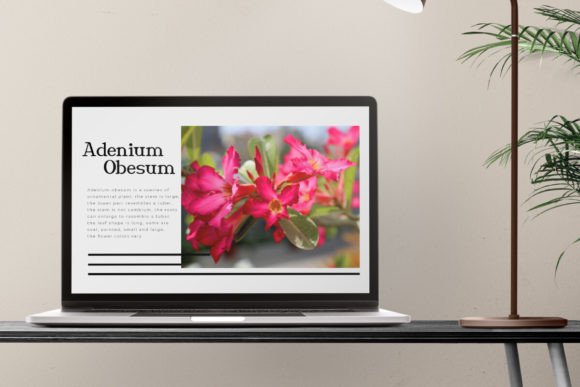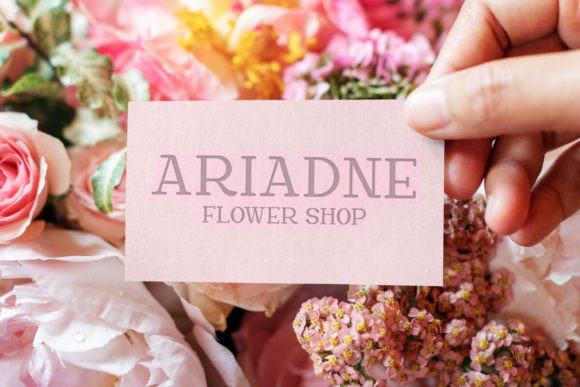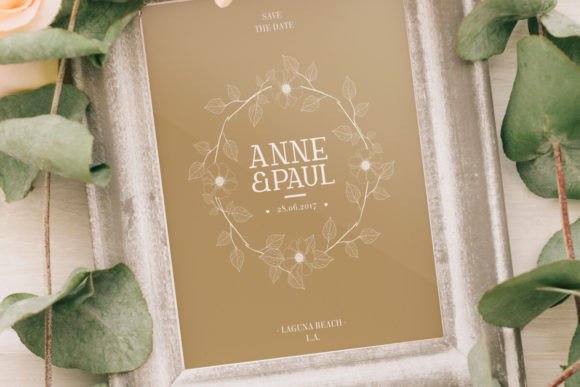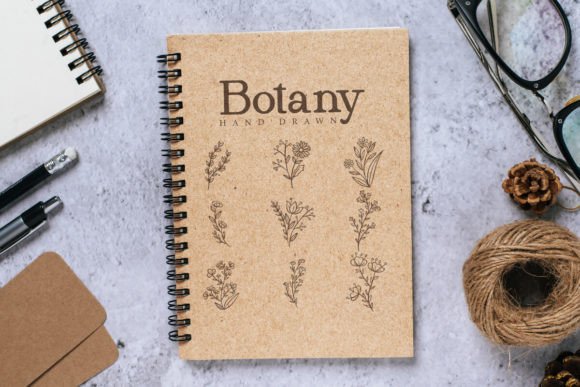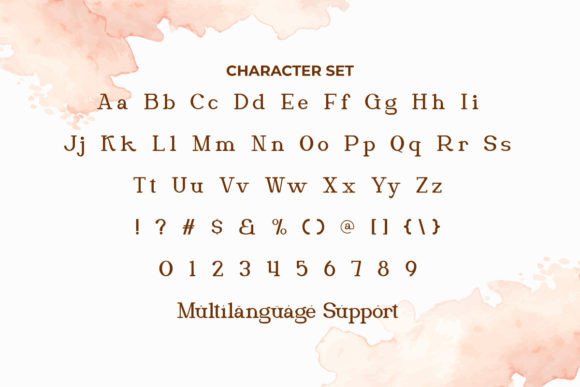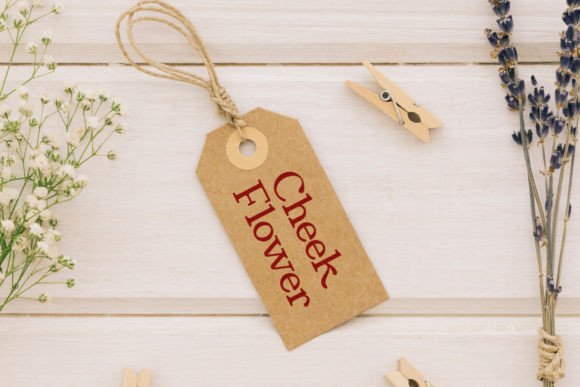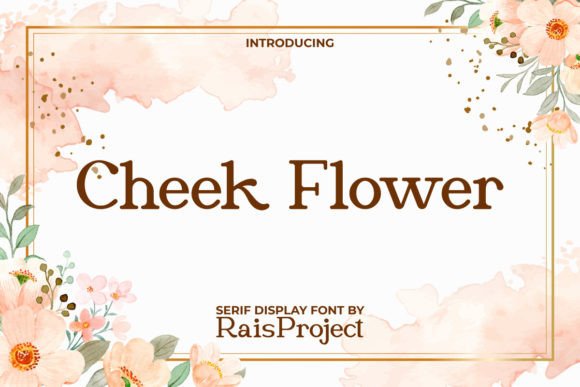
Introducing Cheek Flower Font: The Ultimate Romantic Serif Display Font
Are you looking for a font that exudes love, elegance, and sophistication? Look no further than Cheek Flower Font, a stunning romantic serif display font that will make your designs stand out. With its beautiful and intricate details, Cheek Flower Font is perfect for designers and crafters who want to add a touch of romance and whimsy to their projects.
What Makes Cheek Flower Font So Special?
Cheek Flower Font is a unique and exquisite font that boasts a range of characteristics that make it perfect for a variety of design projects. Here are just a few reasons why you’ll love this font:
• Romantic and Elegant: Cheek Flower Font features delicate serifs and intricate details that give it a romantic and elegant feel. It’s perfect for designs that require a touch of sophistication and luxury.
• Versatile: This font is incredibly versatile and can be used for a wide range of design projects, including brand logos, business cards, covers, custom designs, invitations, labels, magazines, menus, posters, product packaging, quotes, signage, web pages, and more!
• Easy to Read: Despite its intricate details, Cheek Flower Font is surprisingly easy to read, making it perfect for designs that require a lot of text.
• High-Quality: Cheek Flower Font is a high-quality font that is designed to look great in any design project. Its crisp and clean lines ensure that it will look stunning in both digital and print designs.
How to Use Cheek Flower Font in Your Designs
Cheek Flower Font is incredibly easy to use and can be incorporated into a wide range of design projects. Here are a few ideas to get you started:
• Branding: Use Cheek Flower Font to create a stunning brand logo that exudes elegance and sophistication.
• Wedding Designs: This font is perfect for wedding designs, including invitations, wedding programs, and more.
• Packaging: Add a touch of romance and whimsy to your product packaging with Cheek Flower Font.
• Digital Designs: Use Cheek Flower Font to create stunning digital designs, including social media graphics, blog posts, and more.
Tips and Tricks for Getting the Most Out of Cheek Flower Font
Here are a few tips and tricks to help you get the most out of Cheek Flower Font:
• Experiment with Different Sizes: Cheek Flower Font looks great in a variety of sizes, so don’t be afraid to experiment to find the perfect size for your design.
• Pair it with Other Fonts: Cheek Flower Font pairs well with a range of other fonts, so try pairing it with a sans-serif font for a striking contrast.
• Use it for Headlines: Cheek Flower Font is perfect for headlines and titles, so use it to add a touch of elegance and sophistication to your design.
Cheek Flower Font is a stunning romantic serif display font that is perfect for designers and crafters who want to add a touch of love, elegance, and sophistication to their designs. With its intricate details, versatility, and ease of use, Cheek Flower Font is sure to become a favorite in your design arsenal. So why wait? Download Cheek Flower Font today and start creating stunning designs that will leave a lasting impression!
Key Features of Cheek Flower Font:
• Romantic serif display font
• Perfect for branding, wedding designs, packaging, and more
• Elegant and sophisticated feel
• Easy to read
• High-quality font
• Versatile and easy to use
Whether you’re a designer, crafter, or DIY enthusiast, Cheek Flower Font is the perfect addition to your design toolkit. So why wait? Get your hands on Cheek Flower Font today and start creating stunning designs that will make you feel the love!